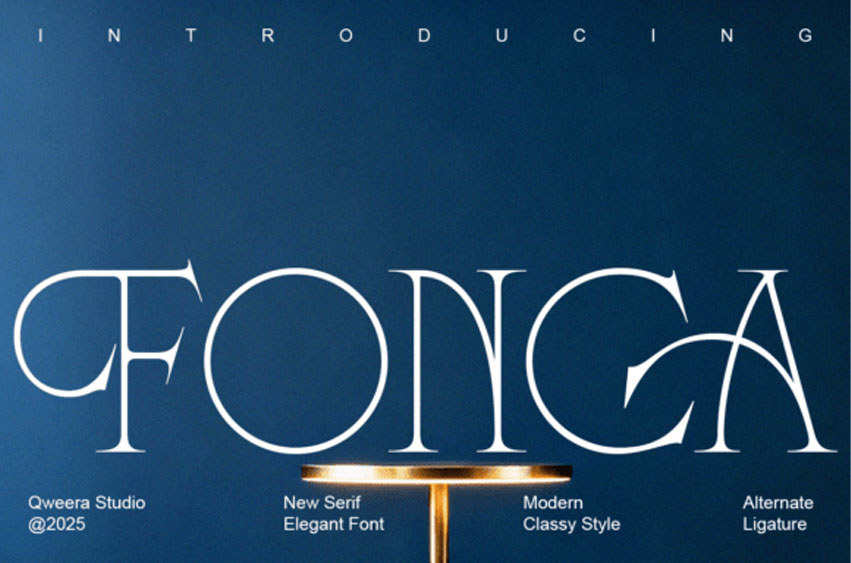
Fonca Font
Fonca Font is a modern elegant serif typeface designed with clean lines and refined contrast.
This font is perfect for branding, editorial layouts, fashion logos, and packaging design. Its minimalist structure and premium aesthetic make it ideal for high-end typography projects. Fonca delivers clean, professional, and timeless design.
Perfect for designers creating elegant and modern branding.